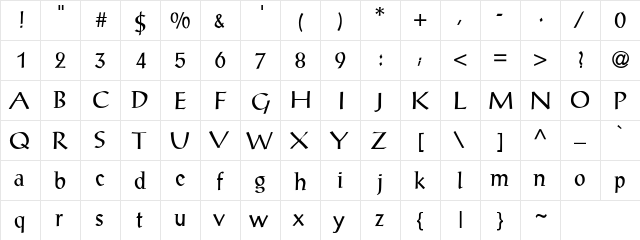
Alex-Antiqua-Bo Regular
Design Context for Alex-Antiqua-Bo Typeface
Alex-Antiqua-Bo offers clean, dependable letterforms without strong stylistic allegiance, making it a practical choice for designers who need flexibility.